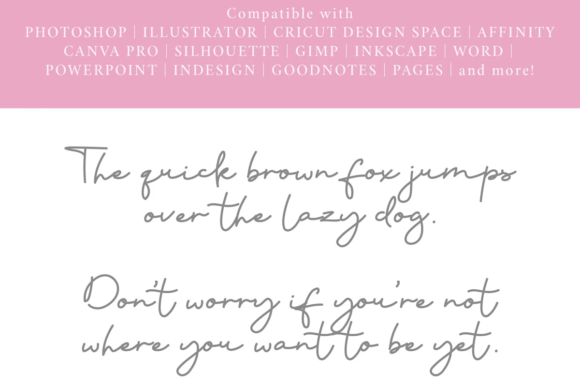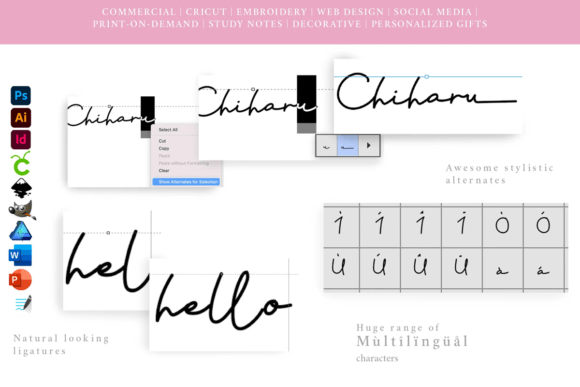
Introduction to Chiharu Font
Chiharu is a monoline script font.
It has a smooth, single-line style that looks like it was drawn with one continuous stroke The letters are elegant and flowing, making it perfect for adding a touch of sophistication to your projects, such as invitations, logos, and decorative text.
Key Features of Chiharu Font
Why Choose Chiharu Font?
Chiharu Font offers exceptional quality and versatility, making it a valuable addition to your design toolkit. Whether you’re creating for personal projects or commercial use, Chiharu Font delivers professional results.